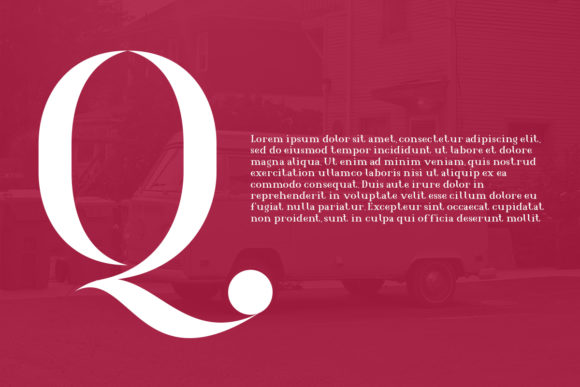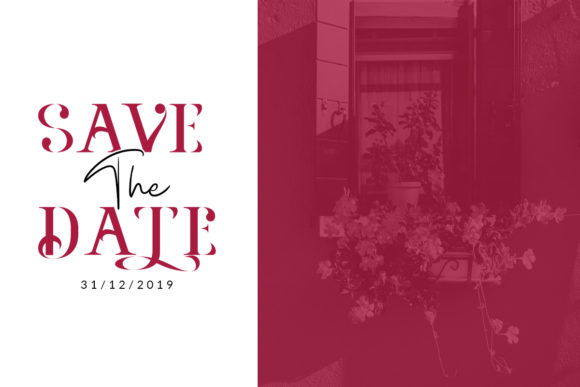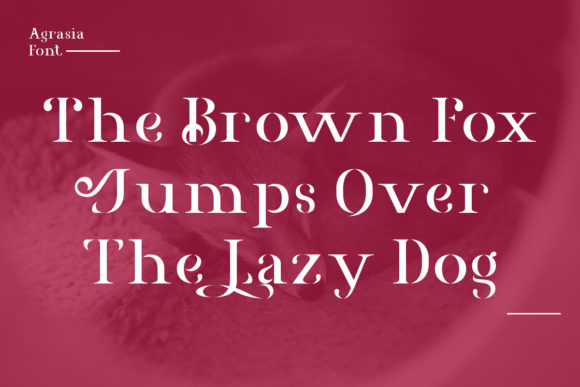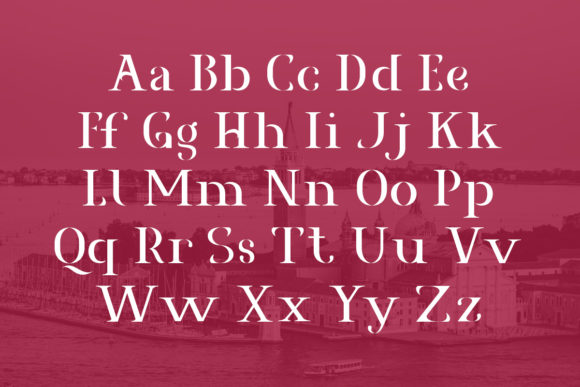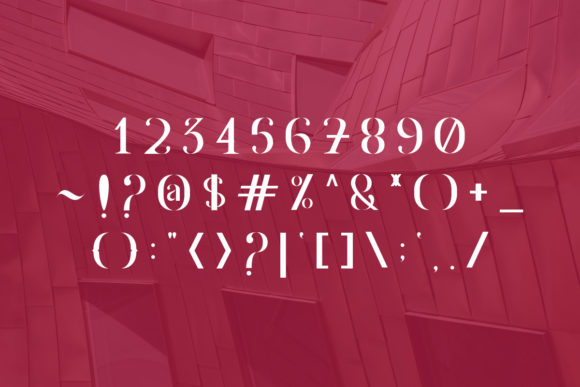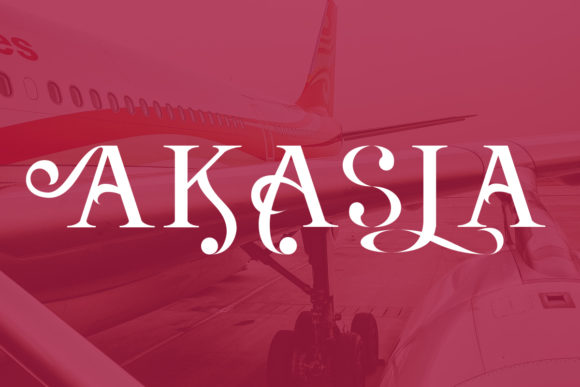
Agrasia Font: Elevate Your Designs with Elegance and Sophistication
In the world of typography, a well-crafted font can make all the difference in creating a lasting impression. Introducing Agrasia, a distinct and elegant serif font that seamlessly blends traditional influences with a contemporary aesthetic. This masterfully designed font is a true must-have for designers and crafters looking to elevate their logos, branding, packaging design, and more.
The Art of Elegance: Agrasia’s Unique Characteristics
Agrasia boasts a sophisticated design that exudes refinement and poise. Its serif lines and curves are carefully crafted to create a sense of fluidity, making it perfect for use in high-end branding, luxury packaging, and editorial design. The font’s classic influences are evident in its subtle flair and refined details, yet its modern twist ensures it remains fresh and relevant.
Versatility at Its Finest: Agrasia in Various Design Applications
One of the standout features of Agrasia is its incredible versatility. This font can be used in a wide range of design applications, from:
• Logos and Branding: Create a lasting impression with Agrasia’s elegant and sophisticated design. Perfect for luxury brands, high-end services, and premium products.
• Packaging Design: Elevate your product packaging with Agrasia’s refined aesthetic. Ideal for cosmetics, fashion, and food packaging.
• Editorial Design: Add a touch of sophistication to your publications with Agrasia’s classic yet modern design. Suitable for magazines, newspapers, and books.
• Digital Design: Use Agrasia in digital applications such as websites, mobile apps, and social media graphics to create a cohesive and luxurious brand identity.
Why Choose Agrasia Font?
With so many fonts available, why choose Agrasia? Here are just a few compelling reasons:
• Unique Design: Agrasia’s distinct design sets it apart from other serif fonts, ensuring your designs stand out from the crowd.
• High-Quality Craftsmanship: This font is meticulously crafted to provide a premium look and feel, perfect for high-end designs.
• Easy to Read: Agrasia’s clear and legible design makes it easy to read, even at smaller font sizes.
Tips for Using Agrasia Font Effectively
To get the most out of Agrasia, here are some expert tips:
• Pair with Sans-Serif Fonts: Combine Agrasia with sans-serif fonts for a striking contrast and visual interest.
• Experiment with Font Sizes: Play with different font sizes to create visual hierarchy and emphasize key elements.
• Use in Headlines and Titles: Agrasia shines in headlines and titles, making it perfect for grabbing attention and creating a lasting impression.
In conclusion, Agrasia is a game-changing font that offers a unique blend of traditional elegance and modern sophistication. Its versatility, legibility, and high-quality craftsmanship make it an essential tool for designers and crafters looking to elevate their designs. Whether you’re working on logos, branding, packaging design, or more, Agrasia is sure to impress. Add this exceptional font to your collection today and experience the power of elegant typography.